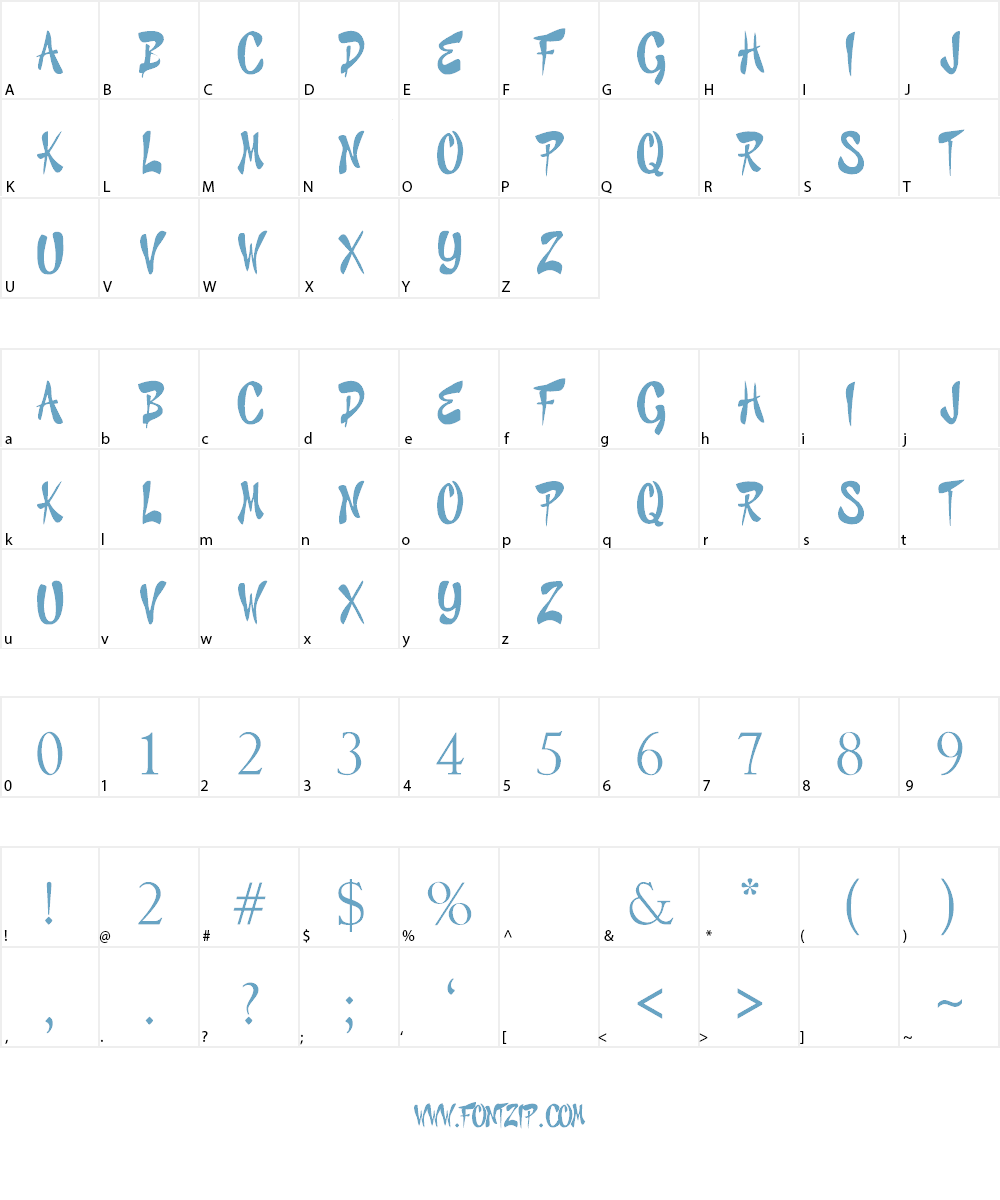
Mestizo: From the Iberian lands to the Americas and the Philippines; What a beautiful blend.
This font is a mixed style.
I took the time to make sure the flow of the letters mixed and blend well like the Mestizo people.
This is the hardest part of font design as you cannot type like a artist truly flows his/her writing.
I am humbly happy to claim that I am a Mestizo.
I call it, "Mestizos Unidos" for the remembrance of our wonderful heritage and a flow of graffiti style script that mixes well.